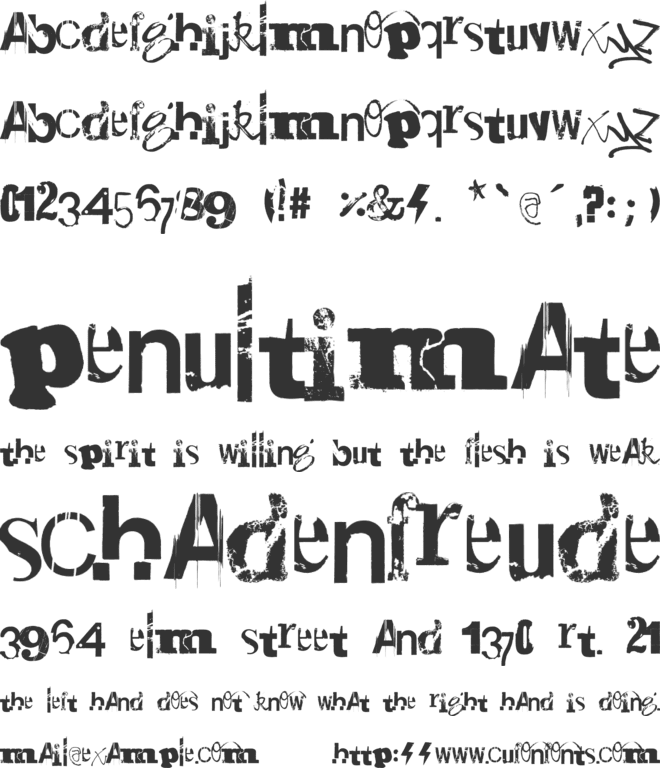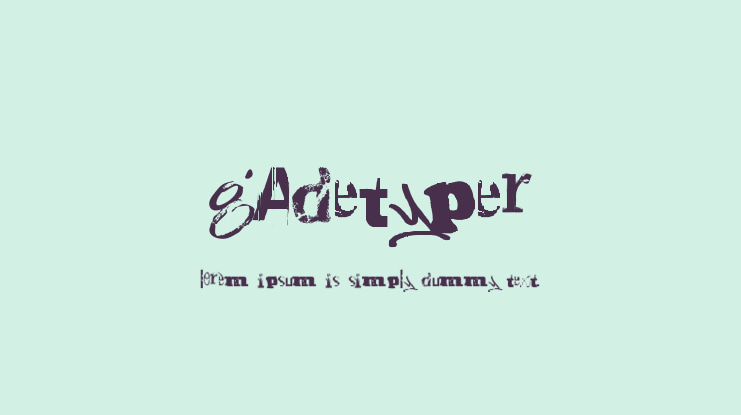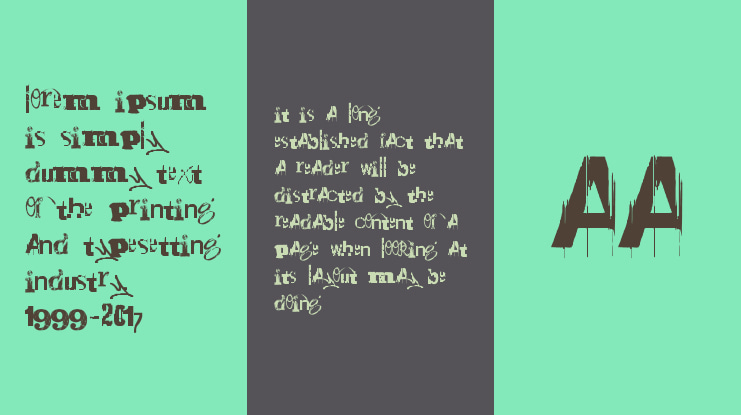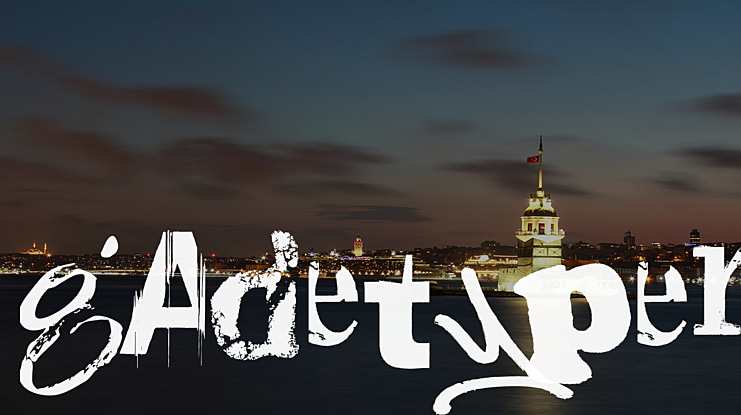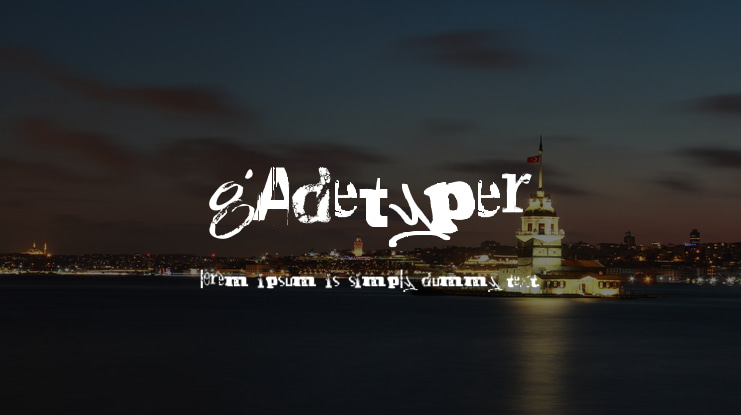
Gadetyper Font
Christina Bruun Olsson & Christian Koch
This is a font consisting of more than 250 glyphs photographed in the streets of Copenhagen. The name is Gadetyper which means street type in danish.